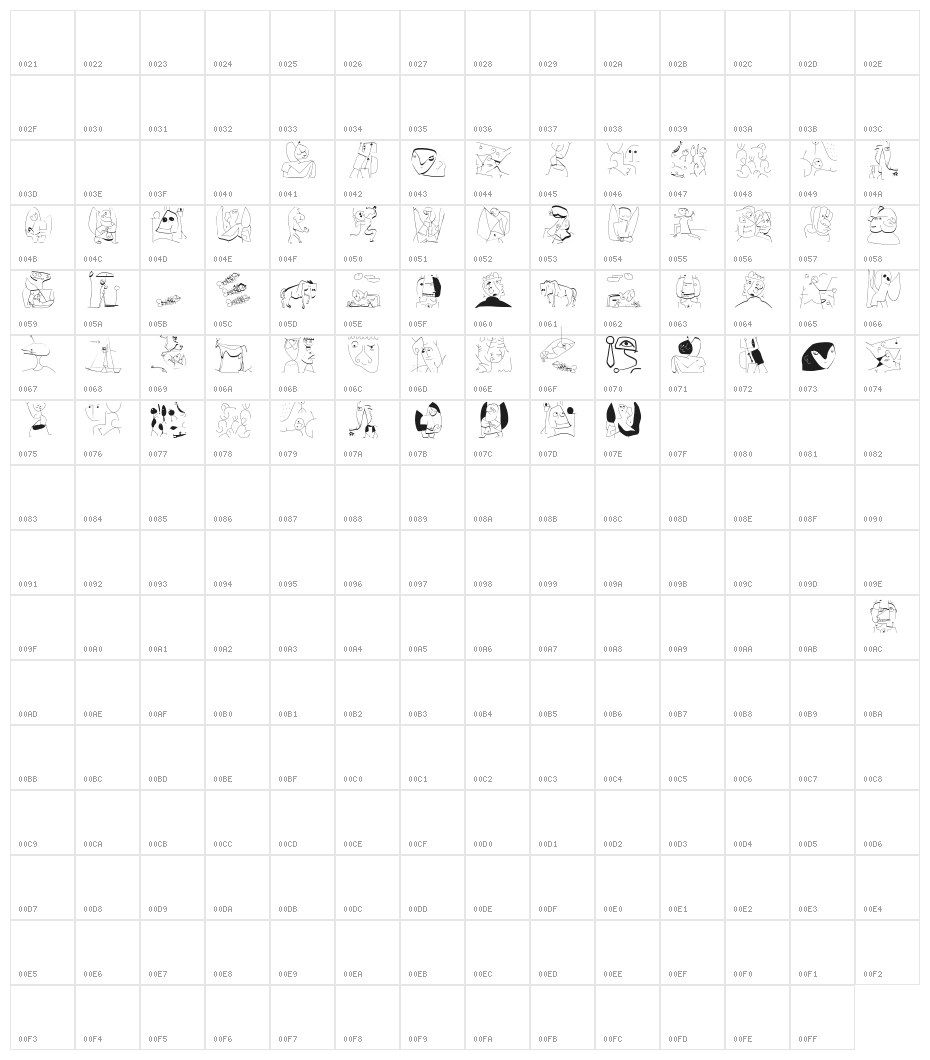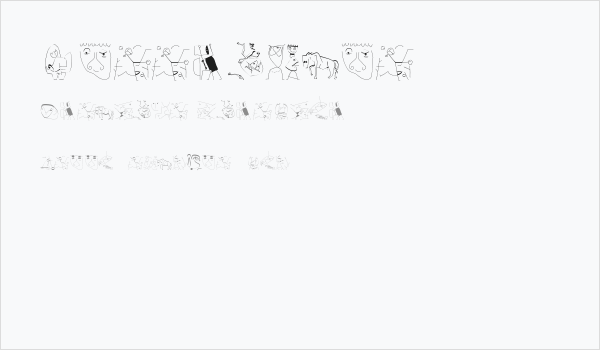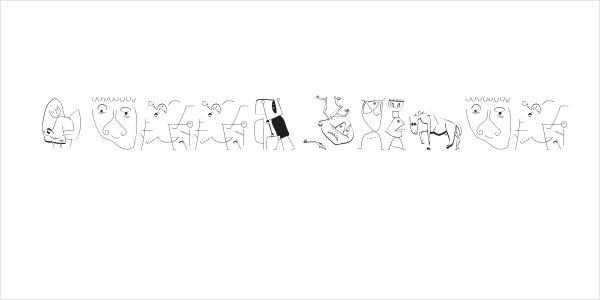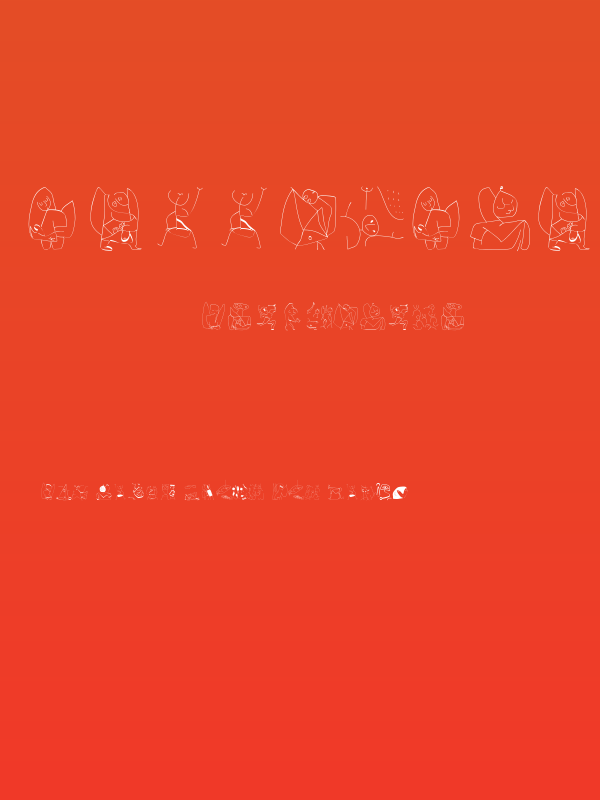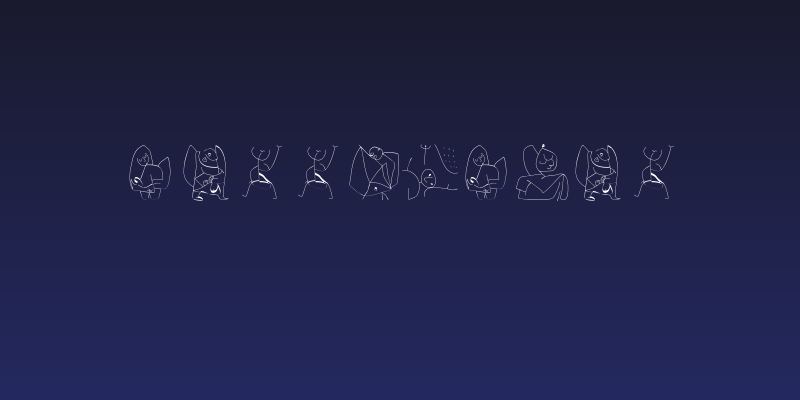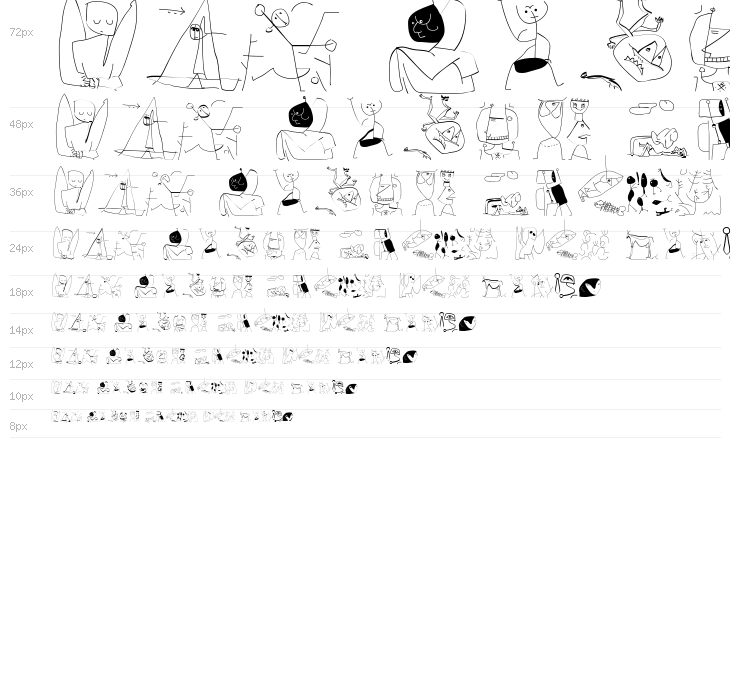
Kleerikale Font
✎ Dingbats
| Gesamtstil | Artistic, Abstract |
| Anwendungsfall | Artistic displays, Creative projects |
| Vorgeschlagene Projekte | Ideal for art projects, creative displays, posters, or any work where visual impact and creativity are prioritized over readability. |